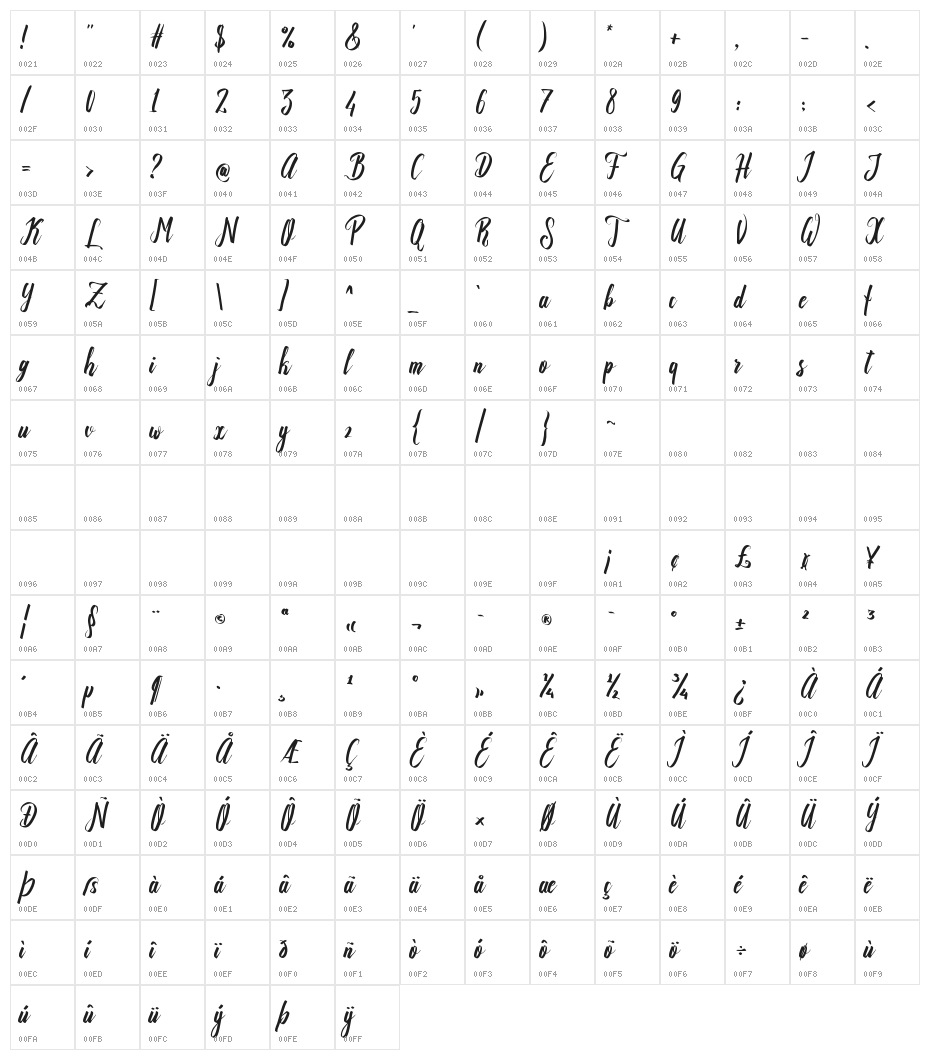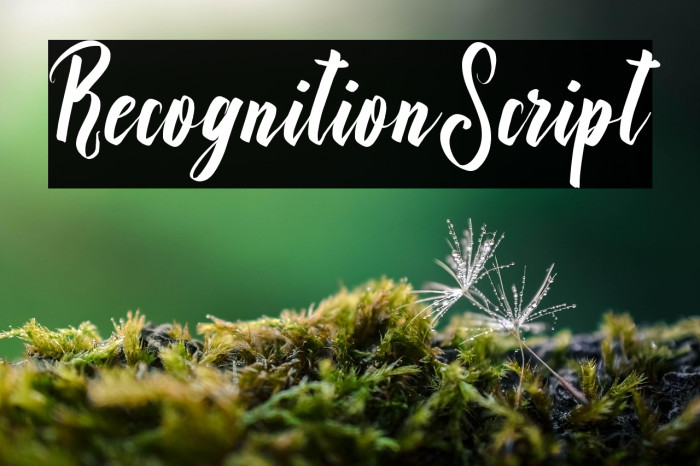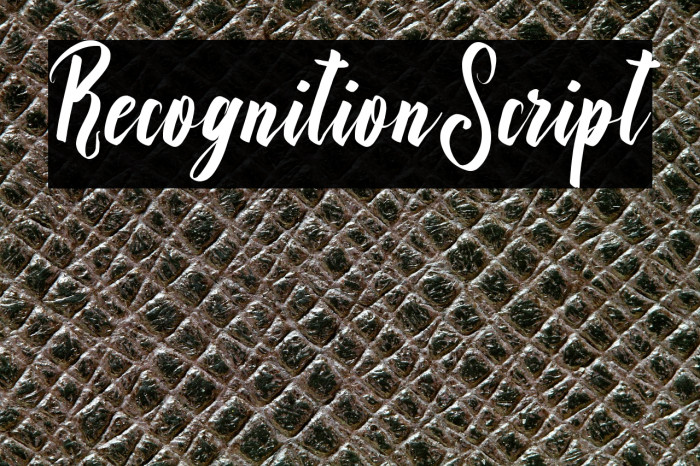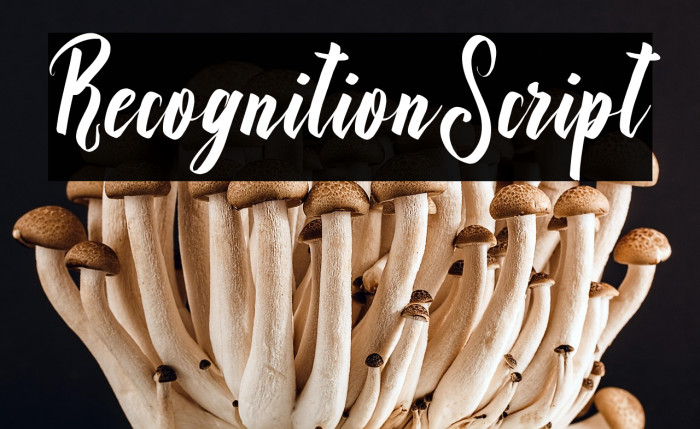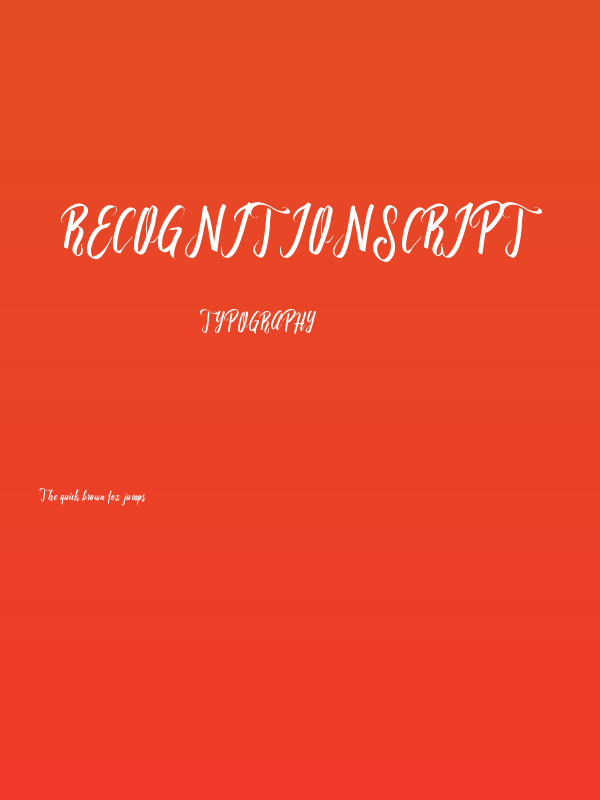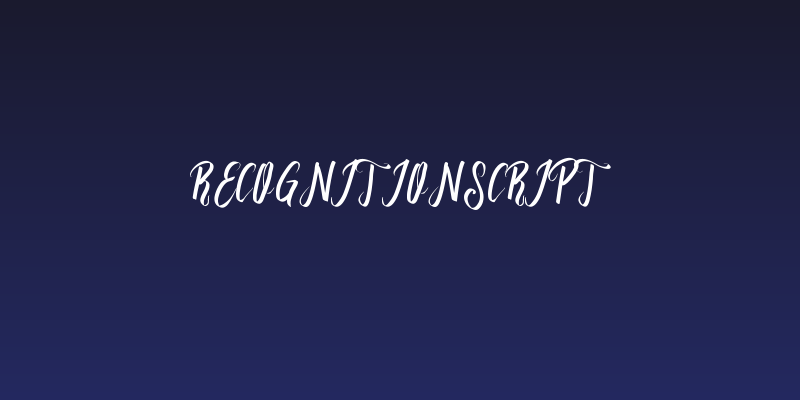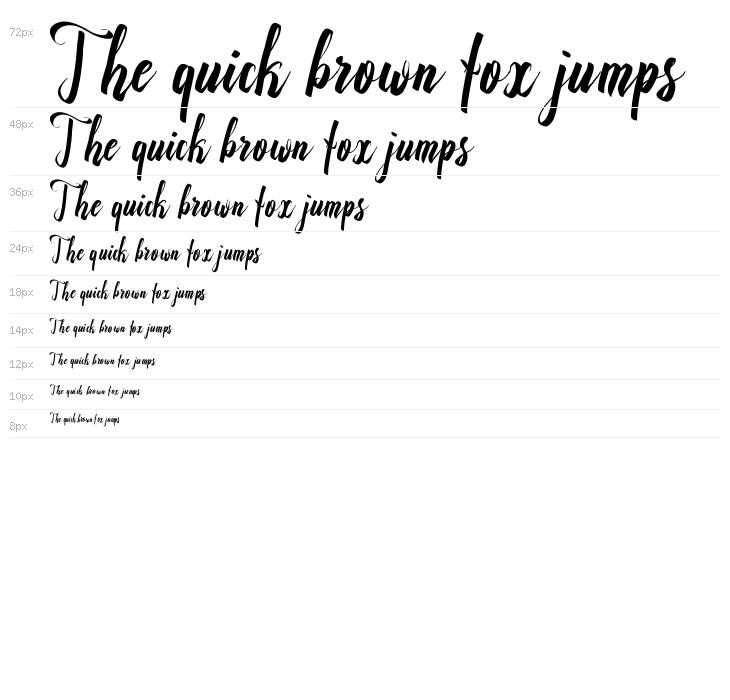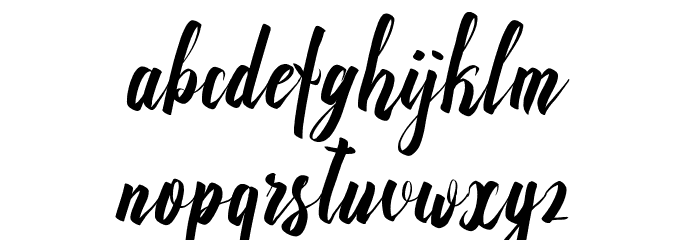
RecognitionScript Font
RecognitionScript Description
This font exudes a dynamic and elegant script style, characterized by its flowing, cursive letterforms that mimic the fluidity of handwriting. The uppercase letters are bold and sweeping, with dramatic flourishes that add a sense of movement and grace. The lowercase letters maintain a consistent style, with smooth connections and rounded forms that enhance readability. Numbers and special characters are designed to match the overall aesthetic, ensuring a cohesive look across all text. The font's artistic flair makes it suitable for creative and expressive projects.